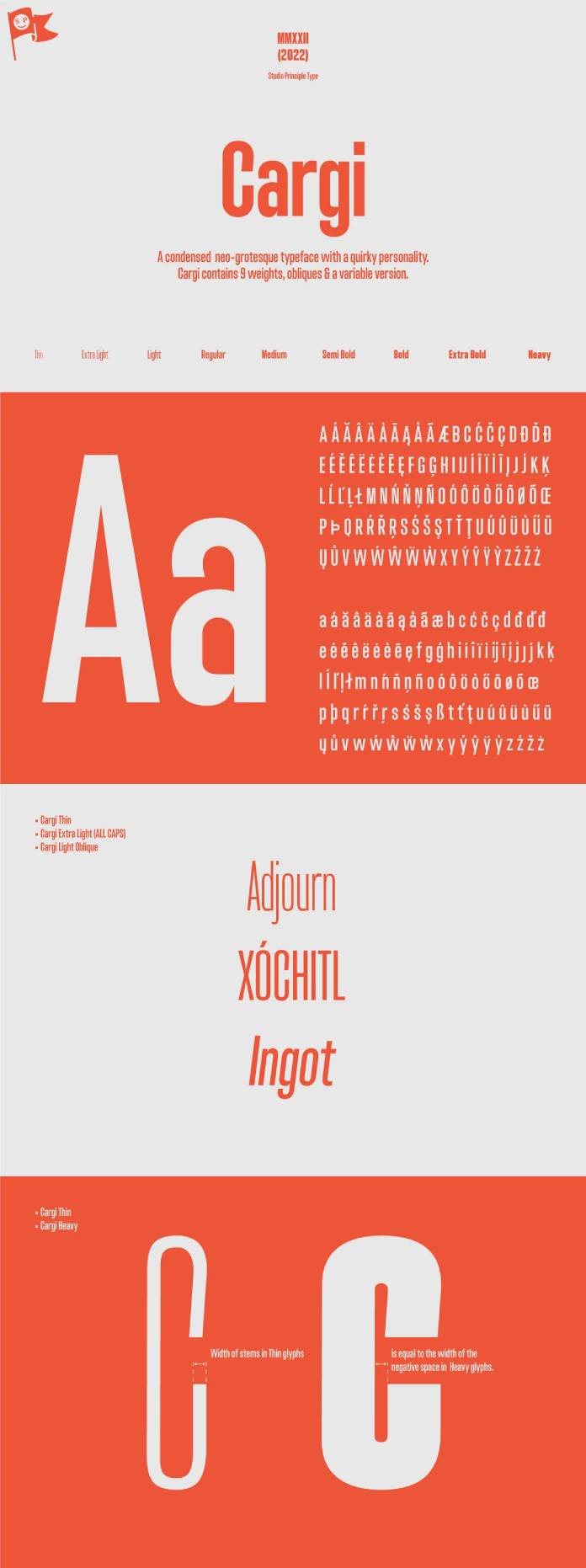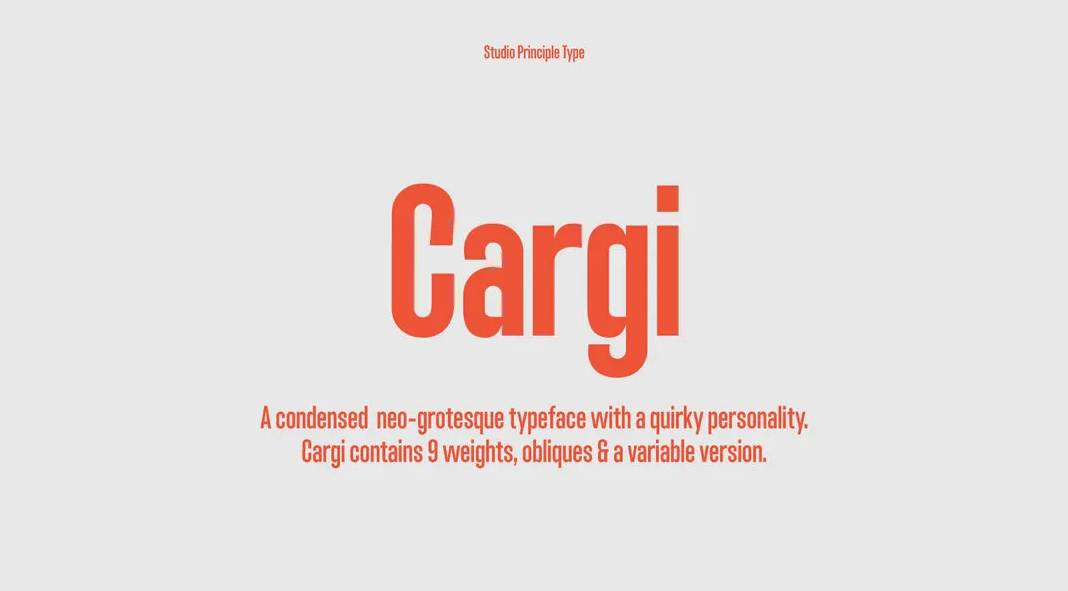
In this digital age, where visual content reigns supreme, choosing the right typeface has never been more important. Today, we’ll explore the captivating Cargi font family by Studio Principle Type, a condensed neo-grotesque typeface with a quirky personality that is sure to make a lasting impression.
A Typeface with a Twist:
Cargi is not your ordinary typeface. It breaks away from the traditional conventions of neo-grotesque design by infusing a touch of whimsy and playfulness. This unique characteristic sets Cargi apart from other fonts in its category, making it a refreshing choice for designers who seek to add a dash of personality to their projects.
Weight, Obliques, and Variable Version:
The Cargi font family boasts an extensive range of options to suit various design needs. With nine carefully crafted weights, ranging from light to bold, designers have the flexibility to choose the perfect weight for any project. Additionally, Cargi offers oblique variations that add a dynamic flair to the typeface, perfect for designs that require an unconventional twist.
Furthermore, the inclusion of a variable version allows for seamless customization. Designers can effortlessly adjust the weight and width of the typeface, unlocking endless possibilities for creating unique and eye-catching compositions.
Legibility and Clean Forms:
While Cargi embraces its quirky personality, it doesn’t compromise on functionality. The font’s low contrast and clean forms ensure excellent legibility, particularly at smaller sizes. This makes it an excellent choice for body text, where readability is paramount. The designers at Studio Principle Type have meticulously crafted each glyph to strike the right balance between style and clarity, ensuring that Cargi remains an accessible choice across a wide range of design applications.
Expressive Display Uses:
Although Cargi shines in body text, its true character comes alive in display applications. Whether it’s headlines, titles, or logos, the font’s unique personality adds an element of surprise and delight to any design. Cargi’s unconventional twists and turns make it an ideal candidate for projects that require a bold and memorable typographic presence.
Multilingual Support:
In today’s interconnected world, diversity and inclusivity are of utmost importance. Studio Principle Type understands this and has equipped Cargi with over 300 glyphs, ensuring support for more than 100 languages. This makes it an inclusive choice for designers working on international projects or targeting a global audience.
The Cargi font family by Studio Principle Type stands out as a condensed neo-grotesque typeface with a quirky personality that brings an added layer of charm to any design. With its nine weights, oblique variations, and variable version, it offers a versatile toolkit for designers to express their creativity. The font’s legibility and clean forms make it suitable for both small-sized text and expressive display applications. Additionally, the extensive multilingual support ensures its accessibility for a diverse range of projects. Whether you’re looking to inject some playfulness into your branding or create visually captivating compositions, Cargi is a font that will undoubtedly leave a lasting impression.